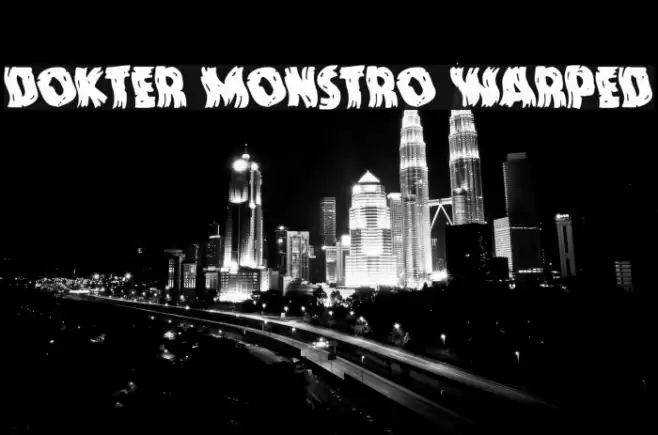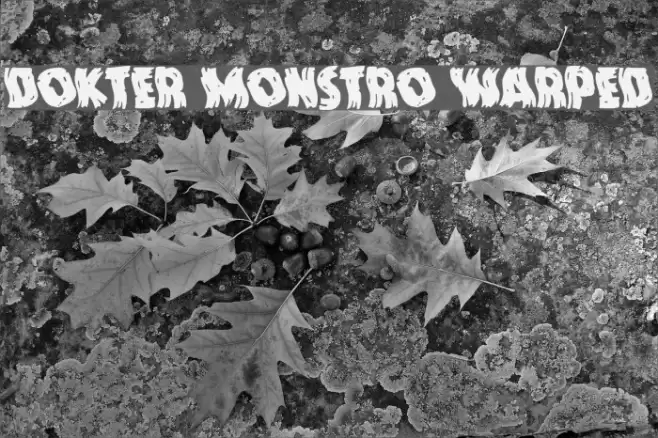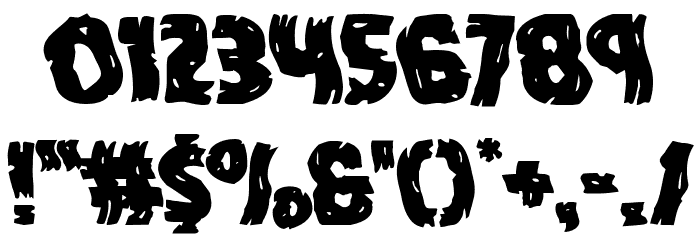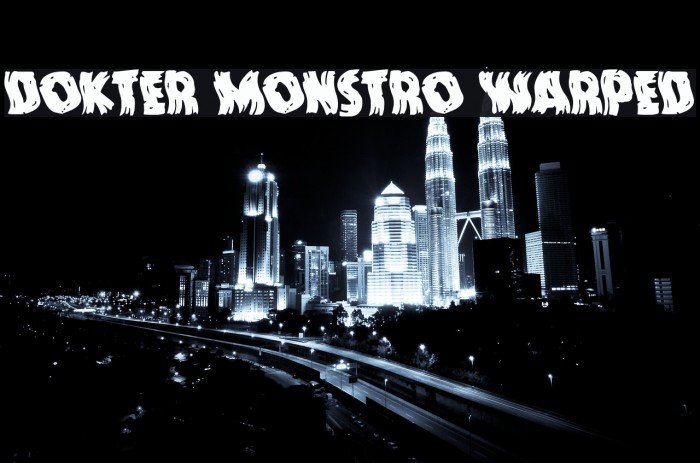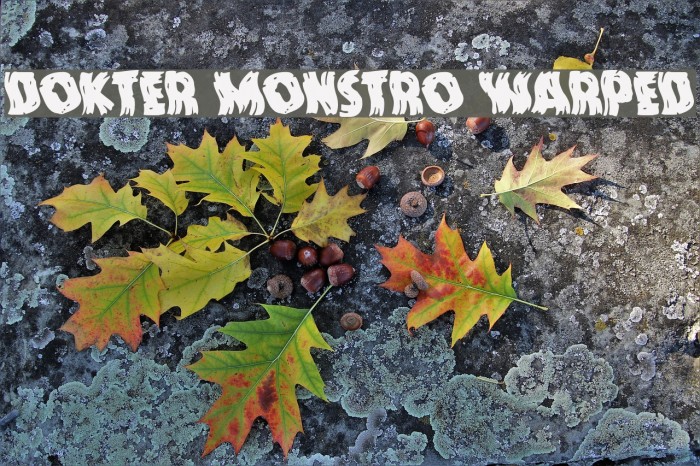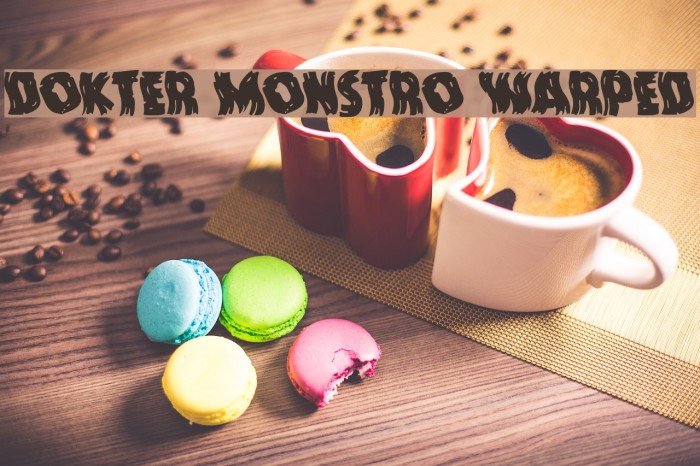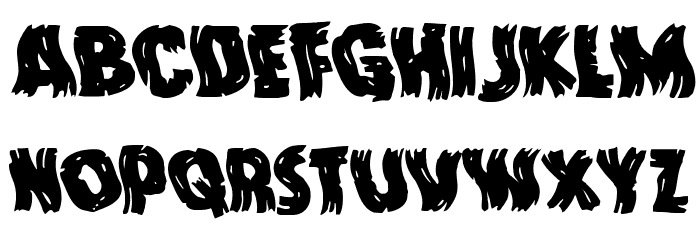
Dokter Monstro Warped Font
Dokter Monstro Warped Description
This font features a bold, distorted style with exaggerated, jagged edges that give it a monstrous and warped appearance. The characters are heavily stylized, with irregular shapes and varying thicknesses, creating a chaotic and dynamic visual impact. The uppercase and lowercase letters maintain a consistent theme of distortion, while the numbers and special characters follow suit with similar warped characteristics. This font is designed to stand out and grab attention, making it ideal for projects that require a dramatic and unconventional look.
A bold, distorted font with jagged edges and a monstrous appearance from Uncategorized fonts.
- Proposed Projects: Perfect for horror-themed posters, Halloween invitations, edgy branding, and eye-catching headlines.